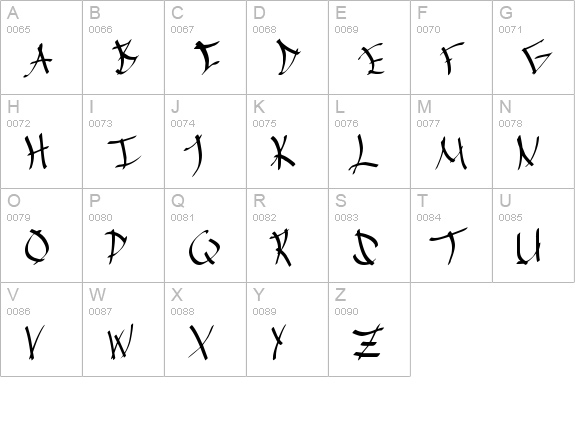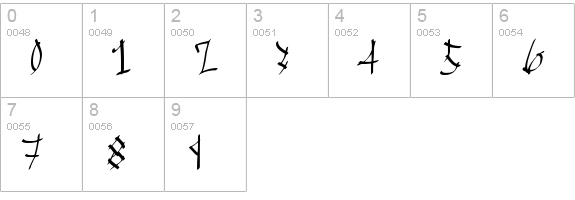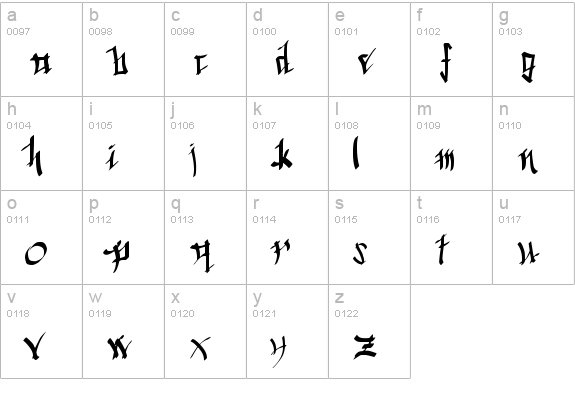
Chinese Calligraphy Font Details
Introducing the mesmerizing Chinese Calligraphy font, a stunning blend of elegance and tradition that will bring a touch of sophistication to your designs. This exquisite font captures the essence of ancient brush strokes with a modern twist, creating a harmonious balance between the past and the present. Immerse yourself in the intricate details and fluidity of each character, carefully crafted to evoke a sense of grace and beauty. Whether you are creating invitations, branding materials, or artistic pieces, this Chinese Calligraphy font will elevate your projects to new heights. Best of all, this captivating font is available for free download at FontsMarket.com. Embrace the artistry of Chinese calligraphy and add a touch of cultural flair to your designs with this remarkable font.